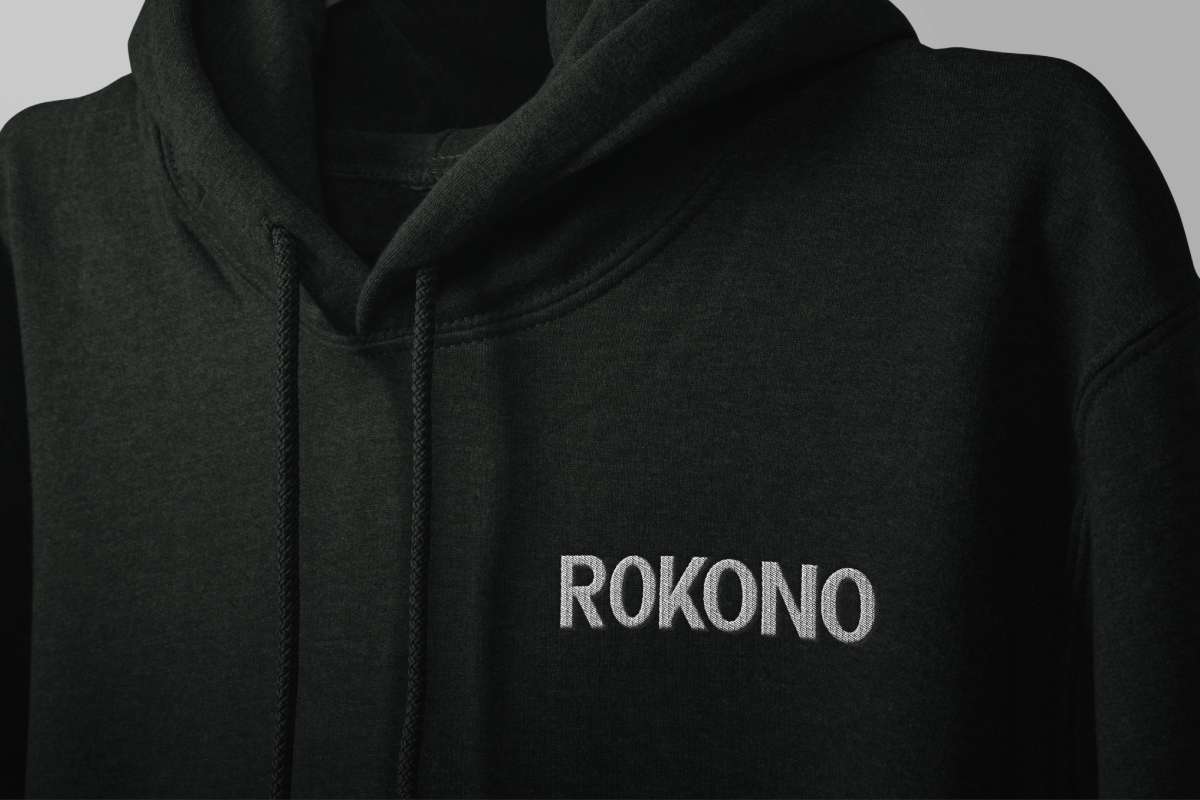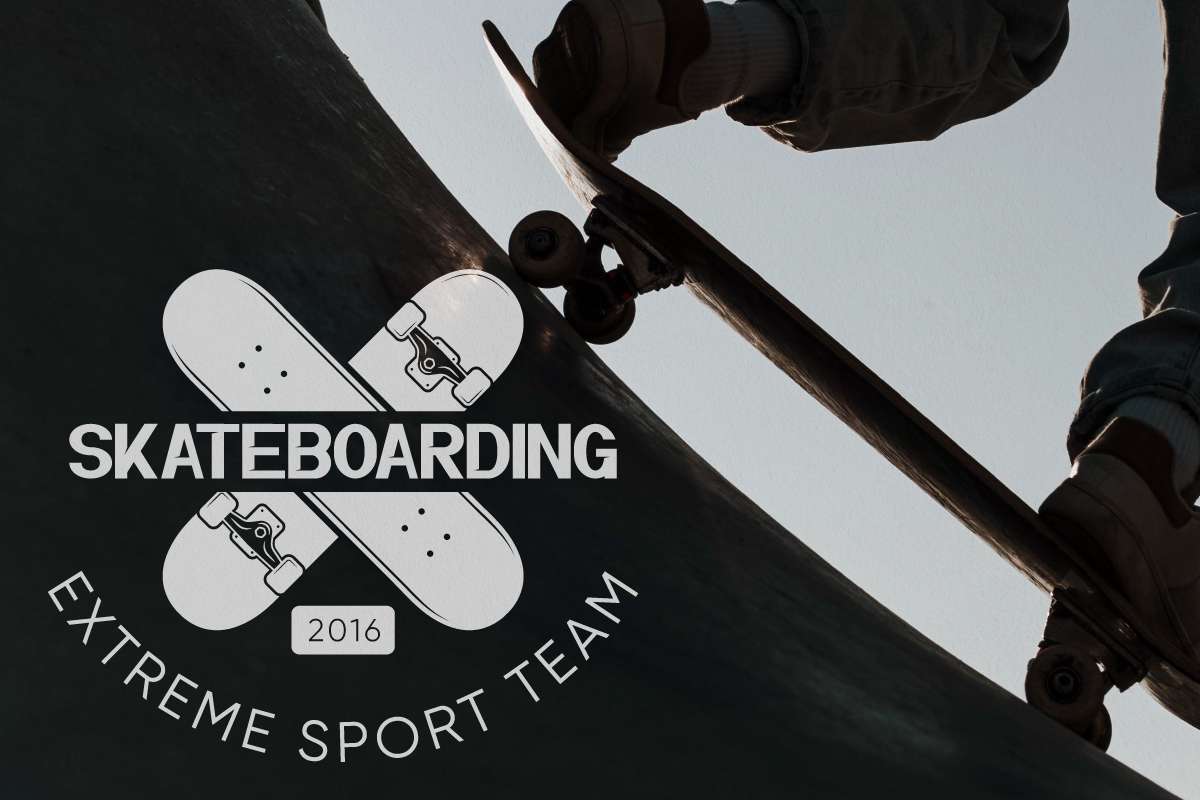
Denham Display Font
It’s a modern sans serif font family with two styles. The style of this font are modern, sporty, strong, techno, etc. Great for logo, brandings, headlines, products, signage etc. Denham Font come with unique characters that will make your designs standout. The font will be awesome for many industries including : entertainment, games, sports, techno, etc